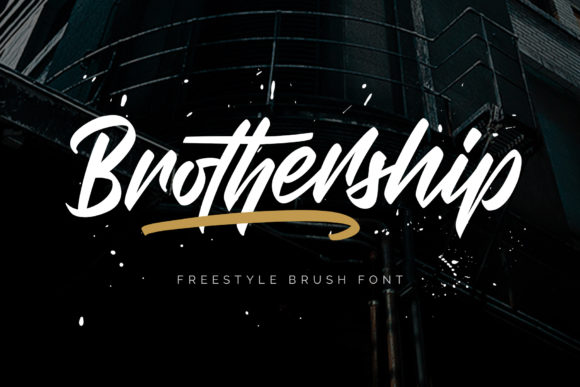
Immerse yourself in the world of Brothership, an enchanting script font family that exudes charm and elegance. Created by the talented Arterfak Project, Brothership effortlessly adds a touch of sophistication to your designs.
Brothership's captivating handwritten style is perfect for adding personalization to wedding invitations, thank you cards, quotes, greeting cards, logos, business cards, and any other project that calls for a unique touch. With its varying baseline, smooth lines, and stunning alternates, Brothership breathes life into your words and captivates your audience.
But Brothership isn't just visually stunning; it's also incredibly versatile. With PUA encoding, you can easily access all of the font's glyphs and swashes, making it perfect for a wide range of design projects. Whether you're creating a clothing brand logo, designing a heartfelt greeting card, or adding a personal touch to your wedding invitations, Brothership adapts effortlessly to your vision.
Brothership is more than just a font; it's an experience. Let its fluidity guide your creativity and immerse your designs in a world of elegance and charm. Embrace the Brothership experience today and elevate your designs to new heights.